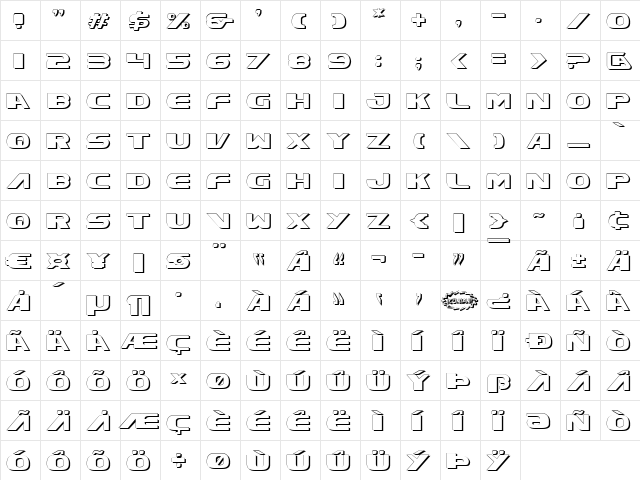
Xcelsion Shadow Shadow
Design Context for Xcelsion Shadow Typeface
Xcelsion Shadow brings ornamental detail and strong personality to headlines and identities, where visual impact matters more than quiet functionality.
Font Pairing: Pair with a clean neutral sans-serif for body copy to let Xcelsion Shadow's character lead without overwhelming the composition.
Pro Tip: Use Xcelsion Shadow exclusively at display sizes — it was designed to be seen, not read at length. Let a neutral companion handle body copy.